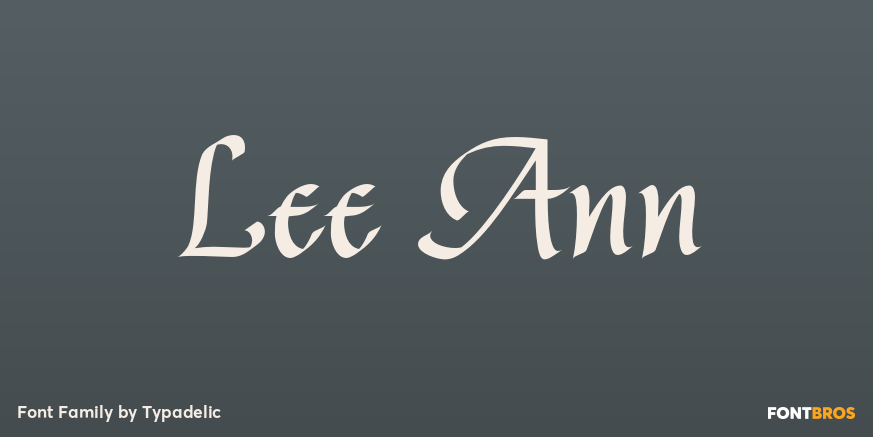
HomeFont BrosHandwrittenLee Ann HandwrittenScripts: Formal Lee Ann FacebookXPinterestWhatsApp 1 of 1 About Lee Ann LeeAnn is a calligraphic font containing additional flourishes…excellent for use on certificates, diplomas and wedding invitations as well as many other applications.  DOWNLOAD ON FONT BROSThis font is sold and delivered by Font Bros. Font Canyon may earn a commission if you buy through this link. People also explored Cogan Curved Font Sandwich Pentcake Font Dadysaurus Font Stint Pro Countdown Font Counter Theblack Font The California Font Shafia Font Malwrence Font 849 0 TagsLee AnnLee Ann Font Previous articleFrench KissNext articleSalt House LEAVE A REPLY Cancel reply Comment: Please enter your comment! Name:* Please enter your name here Email:* You have entered an incorrect email address! Please enter your email address here Website: Save my name, email, and website in this browser for the next time I comment. Personal Use Free Choco Shake Font Personal Use Free Read more about this font Angista Script Personal Use Free Read more about this font Talking on Personal Use Free Read more about this font Crellia Script Personal Use Free Read more about this font BLOG Using Fonts in Digital Marketing: Tips to Strengthen Your Brand Identity In the realm of digital marketing, every visual element plays a crucial role in shaping a brand's identity, and fonts are no exception. The... Where to Buy American Fonts Online in 2024 Best Fonts for T-Shirt Design – Top 2025 Picks The 10 Best Handwriting Fonts to Add Personality to Your Designs